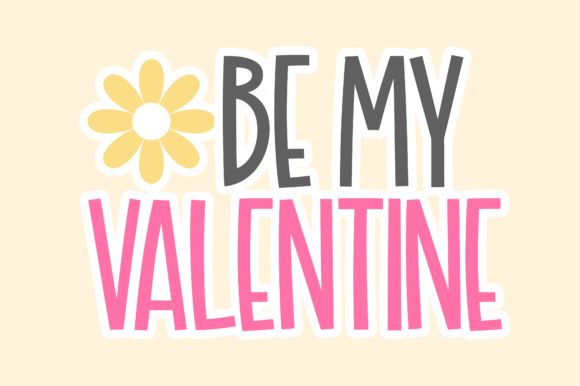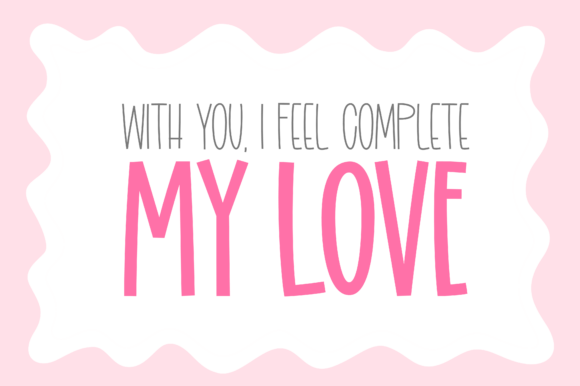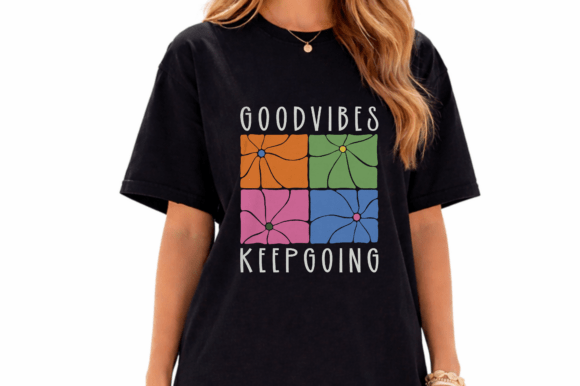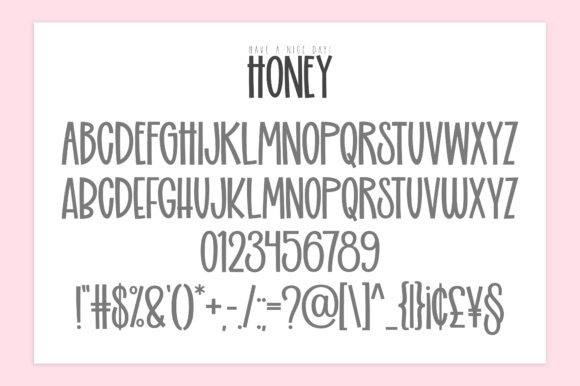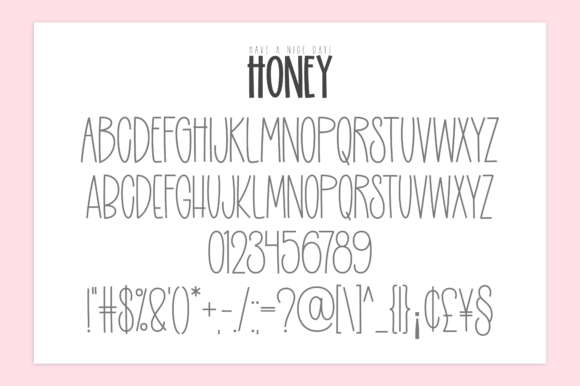
Introducing the Charming “Have a Nice Day Honey Font” Duo
In the world of typography, finding the perfect font duo that conveys warmth, friendliness, and a touch of elegance can be a daunting task. However, look no further than the “Have A Nice Day! Honey” font duo, a charming handwritten font pair that is sure to capture the hearts of designers and crafters alike. This delightful duo combines a tall, bold, playful display type with a light, narrow handwritten companion, creating a beautiful contrast that is both visually appealing and effective in conveying a sense of warmth and approachability.
The Main “Honey” Font: A Quirky and Cheerful Display Type
The main “Honey” font is a tall, bold, and playful display type that features quirky proportions, rounded edges, and an organic, hand-drawn feel. This font is perfect for headlines, titles, and any design element that requires a bold and cheerful personality. The rounded edges and irregular shapes give the font a friendly and approachable feel, making it ideal for designs that aim to feel welcoming and upbeat.
The Secondary “Have A Nice Day!” Font: A Delicate and Airy Companion
The secondary “Have A Nice Day!” font is a light, narrow handwritten companion that adds a delicate, airy touch perfect for accents and supporting text. This font features a more subtle and elegant feel, making it ideal for body text, captions, and any design element that requires a softer, more refined approach. The contrast between the bold “Honey” font and the delicate “Have A Nice Day!” font creates a beautiful visual harmony that is both visually appealing and effective in conveying a sense of balance and sophistication.
A Perfect Balance of Bold Personality and Subtle Elegance
One of the standout features of the “Have A Nice Day! Honey” font duo is its perfect balance of bold personality and subtle elegance. The combination of the two fonts creates a unique visual identity that is both eye-catching and refined. The bold “Honey” font grabs attention and makes a statement, while the delicate “Have A Nice Day!” font provides a subtle and sophisticated supporting role. This balance makes the duo ideal for a wide range of design applications, from branding and posters to greeting cards and social media graphics.
The “Have A Nice Day! Honey” font duo is a versatile and practical choice for designers and crafters looking to add a touch of warmth and personality to their designs. Whether you’re working on a branding project, creating posters and flyers, or designing greeting cards and social media graphics, this font duo is sure to deliver. The fonts are easy to read and work well in a variety of contexts, making them a great addition to any design toolkit.
Design Applications for the “Have A Nice Day! Honey” Font Duo
The “Have A Nice Day! Honey” font duo is suitable for a wide range of design applications, including:
- Branding: Create a unique and memorable brand identity with the bold “Honey” font and delicate “Have A Nice Day!” font.
- Posters and Flyers: Grab attention and make a statement with the bold “Honey” font, and add subtle details with the delicate “Have A Nice Day!” font.
- Greeting Cards: Add a touch of warmth and personality to your greeting cards with the charming “Have A Nice Day! Honey” font duo.
- Social Media Graphics: Create engaging and eye-catching social media graphics with the bold “Honey” font and delicate “Have A Nice Day!” font.
In conclusion, the “Have A Nice Day! Honey” font duo is a charming and versatile font pair that is sure to capture the hearts of designers and crafters alike. With its perfect balance of bold personality and subtle elegance, this font duo is ideal for a wide range of design applications. Whether you’re working on a branding project, creating posters and flyers, or designing greeting cards and social media graphics, the “Have A Nice Day! Honey” font duo is a great choice. So why not give it a try and add a touch of warmth and personality to your designs?